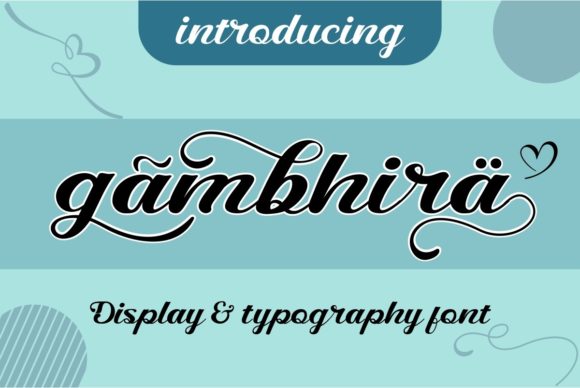
Prepare yourself to be mesmerized by Gambhira, an exquisite script font that exudes elegance and sophistication. Every letter dances across the page with a graceful rhythm, inviting you on an enchanting journey of creativity.
Imagine your wedding invitations adorned with Gambhira's alluring curves, whispering secrets of love and forever. Picture thank-you cards etched with its delicate strokes, expressing gratitude with a touch of heartfelt warmth. Quotes come alive when penned in Gambhira, their messages resonating with a profound emotional depth.
Greeting cards transformed into masterpieces, bearing Gambhira's enchanting script. Logos and business cards gain an air of distinction, their identities etched in an unforgettable style. Every design graced by Gambhira becomes a canvas of pure artistry.
But Gambhira's allure extends far beyond its aesthetic charm. It's a font meticulously crafted for versatility, effortlessly adapting to a myriad of design needs. Its PUA encoding grants you the power to unleash the full potential of its glyphs and swashes, empowering you to create designs that captivate and inspire.
Indulge in the world of Gambhira and discover a font that not only elevates your designs but also stirs the emotions of your audience. Let its graceful strokes paint a symphony of creativity, leaving an indelible mark on every project you undertake.